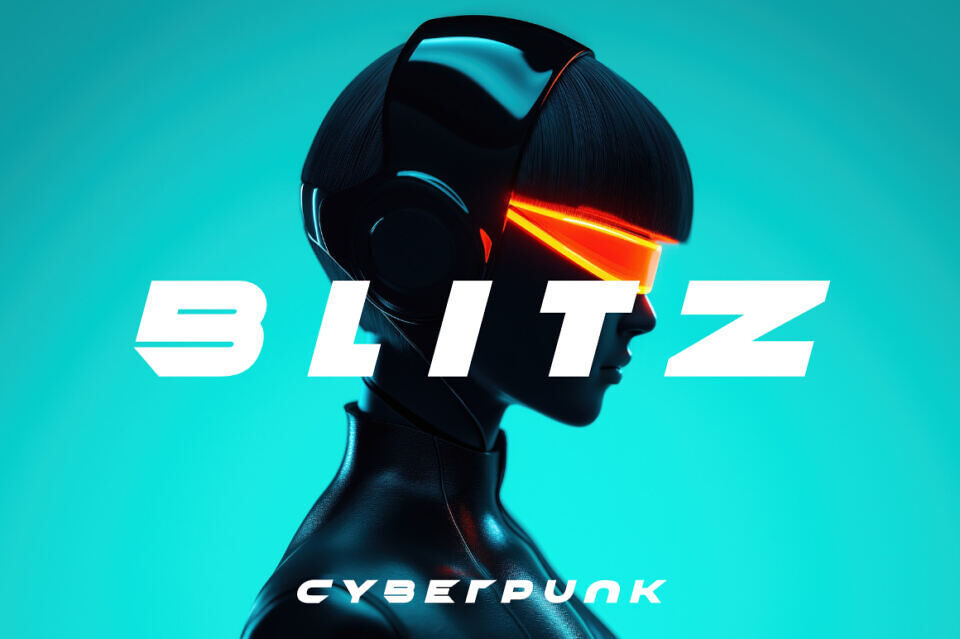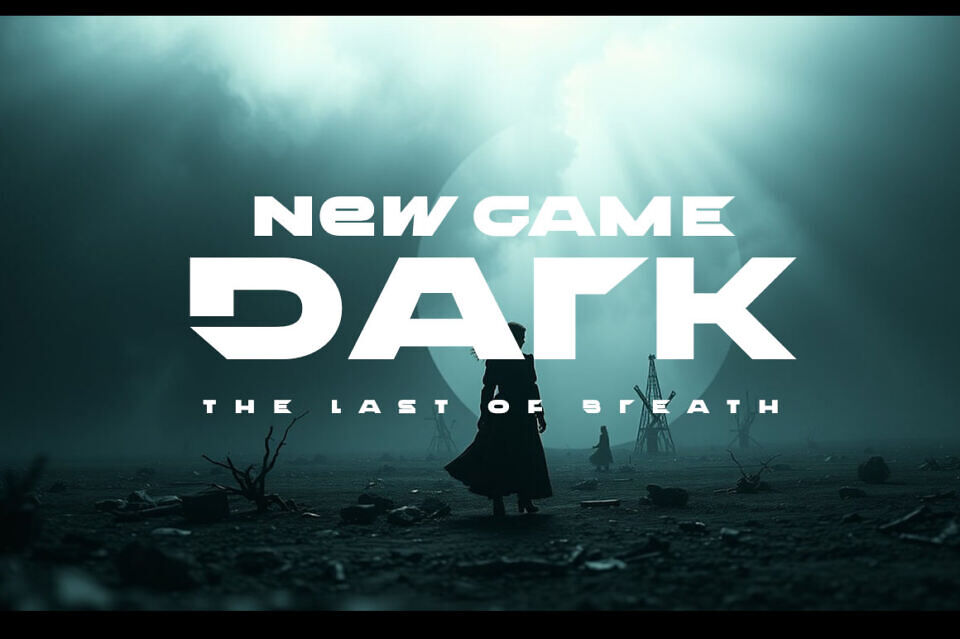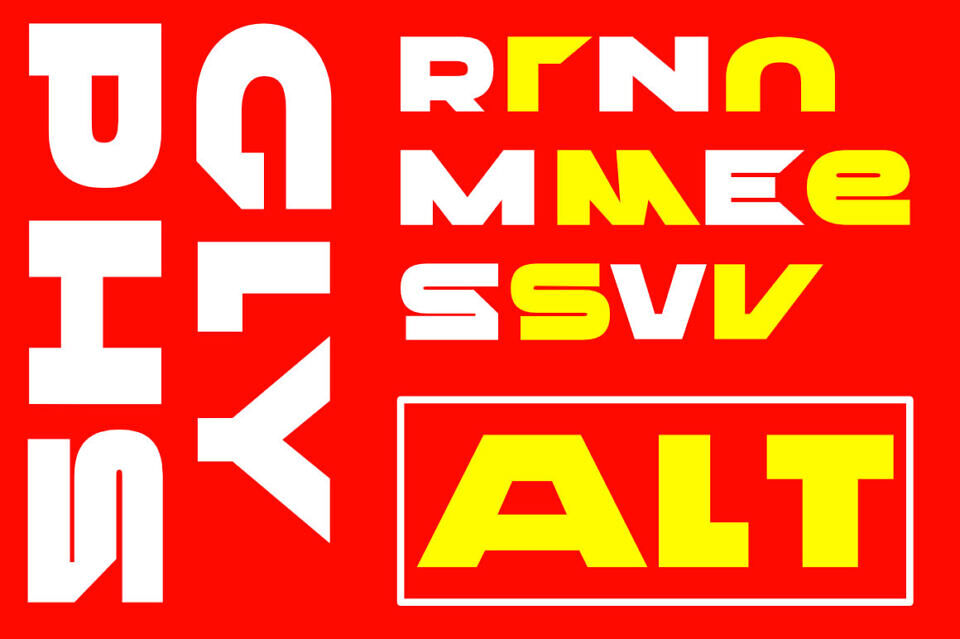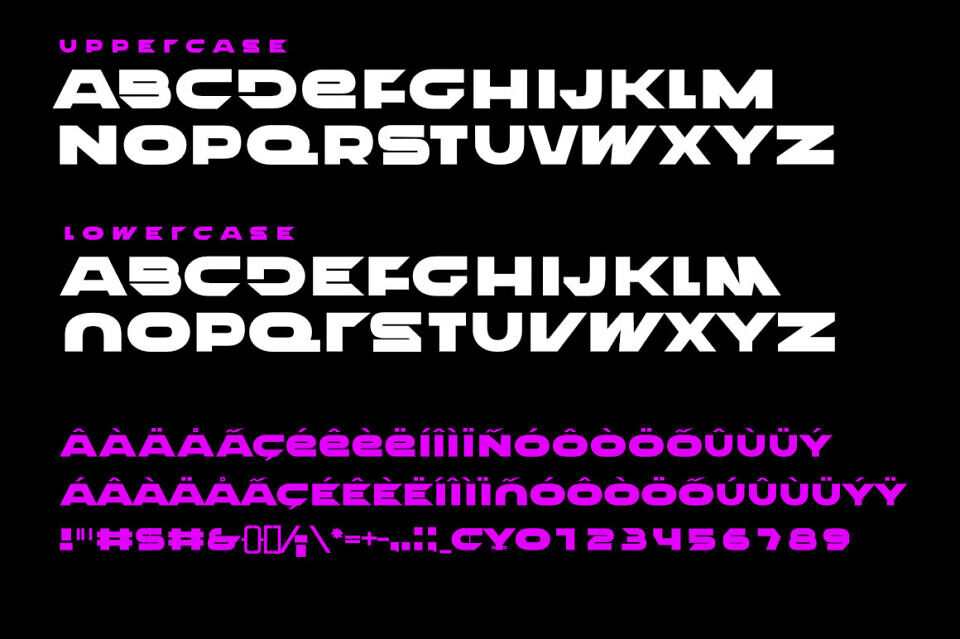
Trickr Logo Font
Shatter the mundane. Embrace the sharp edges of tomorrow. This is the visual language of progress, where clean lines and dynamic angles converge to sculpt a message that resonates with innovation.
Trickr Logo font includes: Regular Weight, Italic Weight.
Designed by: ffeeaarr design